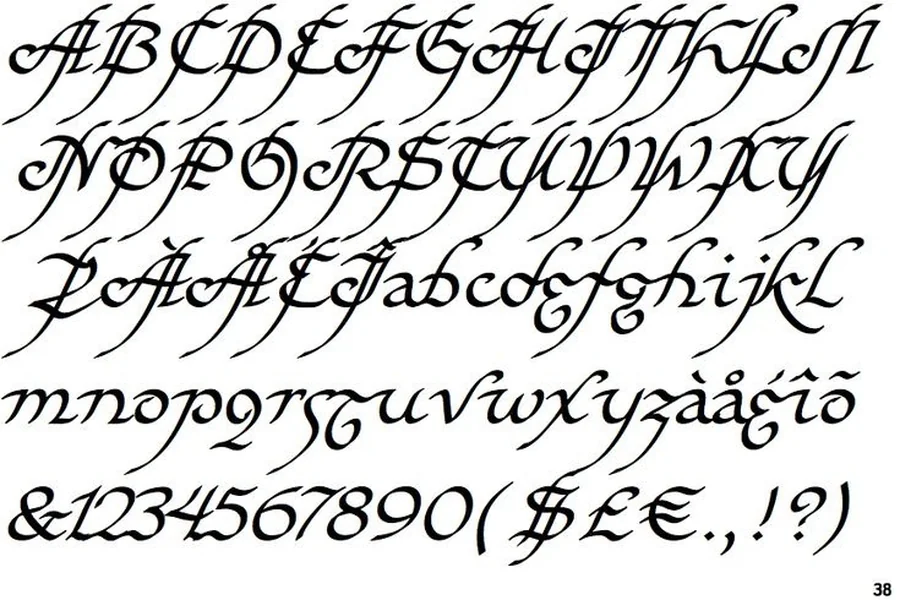
Elf Font Guide for Creative Design and Typography Use
Elf font is a decorative type style inspired by fantasy themes magic stories and fairytale worlds. Designers use elf font when they want to create a dreamy feeling. It feels playful and artistic. Many people love elf font for game logos storybook covers event posters and fantasy themed branding. Elf font is popular because it creates emotion. It makes viewers feel curious and excited. It brings imagination into the design.
Elf font works well for creative projects. It is not meant for serious business documents. It fits best with artwork that tells a story. When people see elf font they think of magic forests heroes ancient worlds and mystical adventures. That is the power of elf font. It changes the mood instantly.
Designers choose elf font because it stands out. It is different from basic fonts. It attracts attention and holds it. That makes it useful for posters social media graphics game covers and branding for fantasy content.
Elf font also helps express creativity. It shows personality. It gives projects a unique voice. Many designers enjoy experimenting with elf font because it opens new creative doors.
Elf font is not just a font. It is a design tool. It helps tell a story visually. When used correctly elf font becomes part of the message. It supports the theme and strengthens the emotional impact of the project.
In recent years elf font has become more common. Many digital artists use it in online content. Content creators use elf font for thumbnails banners and promotional material. It helps their work stand out in a crowded digital world.
If you want your design to feel magical expressive and imaginative then elf font is a strong choice. It allows your ideas to look alive on the screen or page.
How to Use Elf Font Effectively
Using elf font requires balance. Because elf font is decorative it should be used with care. Too much elf font can make a design look busy. Too little can reduce its impact. The goal is to let elf font shine without overwhelming the viewer.
The best place to use elf font is in titles and headings. It works well for logos and short text sections. Avoid using elf font for long paragraphs. It becomes hard to read when used in large blocks.
Pair elf font with a clean simple font. This creates contrast. The simple font supports the content while elf font adds personality. Together they make the design look professional and creative.
Color choice matters. Elf font looks beautiful in soft glowing colors. Greens blues gold and silver often work well. Dark backgrounds can make elf font glow. Light backgrounds can make it feel airy and magical.
Spacing is important when working with elf font. Leave enough space around the text. This allows the design to breathe. It also helps the viewer focus on the message.
Use elf font where emotion matters. Story titles game names fantasy book covers event posters and creative branding benefit from elf font. It makes these projects feel special and memorable.
Test your design on different screens. Elf font should remain clear on mobile and desktop. Adjust size and spacing if needed. Good design always considers readability and user experience.
When used thoughtfully elf font becomes a powerful visual tool. It enhances the theme and strengthens the overall message.
Popular Uses of Elf Font in Branding and Art
Elf font is widely used in fantasy games. Game developers choose elf font for logos menus and promotional art. It helps build the world of the game. Players instantly understand the theme when they see the font.
Book covers often feature elf font. Fantasy novels children stories and adventure books use elf font to attract readers. The font sets expectations before the first page is opened.
Elf font is common in event design. Fantasy festivals cosplay events role playing gatherings and themed parties use elf font on posters tickets and banners. It creates excitement and anticipation.
Artists use elf font in digital illustrations. It adds magic to quotes poems and artwork. Social media creators use elf font for inspirational messages and creative content.
Branding also benefits from elf font when the brand focuses on creativity imagination or storytelling. Elf font helps brands stand out. It makes them feel unique and memorable.
Even in web design elf font has a place. Fantasy websites and creative portfolios often include elf font for headings and logos. It gives the website personality and style.
Elf font can also be used in merchandise. T shirts mugs stickers and posters featuring elf font appeal to fantasy fans. These products feel special because of the design choice.
Overall elf font has become a symbol of creativity and imagination. Its presence enhances visual storytelling across many creative industries.
Choosing the Right Elf Font Style
Not all elf fonts look the same. Some feel ancient and mystical. Others feel playful and light. Choosing the right style depends on the message you want to send.
If your project is dark and mysterious choose an elf font with sharp edges and strong lines. If your project is friendly and joyful choose an elf font with soft curves and flowing shapes.
Look at your audience. Younger audiences may enjoy playful elf font. Mature audiences may prefer elegant elf font. Match the font style with the mood of your content.
Consider the setting of your story or brand. Forest themes pair well with natural organic elf fonts. Magic themes work well with glowing fantasy style elf fonts. Adventure themes benefit from bold dramatic elf fonts.
Test different options before deciding. Place the font into your design and see how it feels. Good design always feels right before it looks right.
Avoid choosing an elf font just because it looks interesting. Choose it because it supports the message and strengthens the story.
The right elf font will blend with the artwork. It will feel natural and purposeful. It will make the design stronger and more engaging.
Final Thought
Elf font is more than decoration. It is a creative language. It speaks through style emotion and imagination. When used with care elf font transforms ordinary designs into magical experiences. It helps stories come alive. It draws viewers into new worlds.
Whether you are designing a game logo book cover poster website or artwork elf font gives you the power to express creativity in a unique way. Learn how to use it wisely. Combine it with clean typography. Respect readability. Trust your artistic vision.
With practice and experimentation elf font will become one of your favorite tools in design. It will help your projects feel special memorable and full of life.